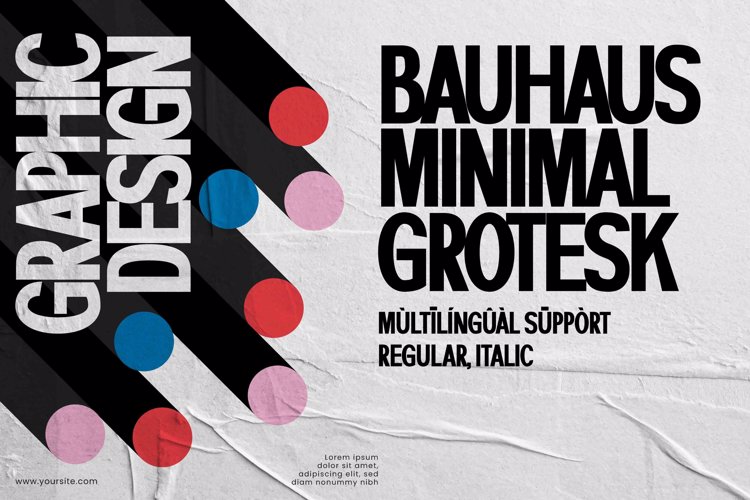
BAUHAUS Font
๐จ Font Name: Bauhaus by Minimalist Art Studio
๐จ Font Description: Bauhaus, is a minimal, condensed grotesque. it is a geometric sans serif with multilingual supportโideal for graphic design, editorial layouts, and modern branding.
โ Complete Latin set + multilingual diacritics
โ Alternates, stylistic sets & ligatures
โ Numbers, small caps, and extended punctuation
โ Bonus italics and family styles